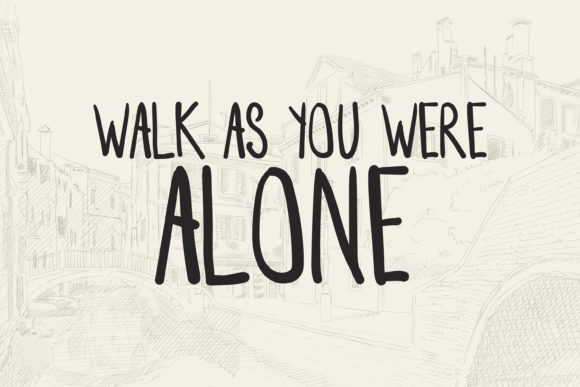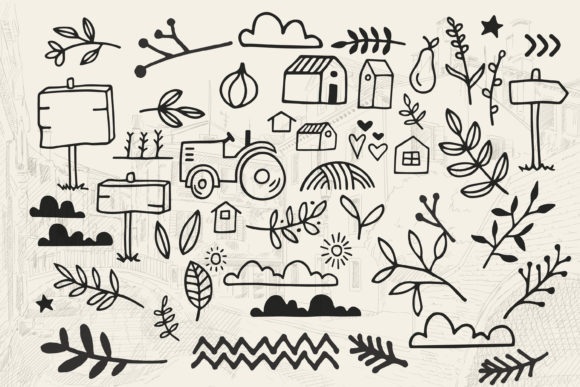
Discover the Charm of Asur Regular Font: Elevate Your DIY Projects with a Friendly Sans-Serif Delight
Are you a designer, crafter, or DIY enthusiast looking for a font that can add a touch of warmth and personality to your projects? Look no further than the Asur Regular Font. This adorable sans-serif font is designed to bring a friendly feel to any design, making it perfect for a wide range of creative endeavors. In this article, we’ll dive into the world of Asur Regular, exploring its unique features, and how it can be used to bring your DIY projects to life.
The Allure of Asur Regular Font
Asur Regular Font is a cute and lovely sans-serif font that boasts an incredibly friendly feel. Its unique design makes it stand out from more traditional fonts, offering a fresh and modern aesthetic that’s sure to capture attention. The font’s clean lines, and approachable style, make it an excellent choice for designers and crafters who want to add a personal touch to their work.
Key Features of Asur Regular Font
- Unique Sans-Serif Design: Asur Regular features a distinctive sans-serif design that sets it apart from other fonts in its category.
- Friendly Feel: The font’s friendly feel makes it perfect for projects that require a personal touch, such as crafting, DIY, or social media graphics.
- Cute and Lovely Aesthetic: Asur Regular’s adorable design makes it an excellent choice for projects that require a playful and charming touch.
- Versatility: This font can be used for a wide range of projects, from digital designs to print materials.
How to Use Asur Regular Font in Your DIY Projects
Asur Regular Font can be used in a variety of DIY projects, including:
- Handmade Crafts: Add a personal touch to your handmade crafts, such as knitting patterns, sewing projects, or paper crafts.
- Social Media Graphics: Use Asur Regular to create engaging social media graphics, such as quotes, posters, or Instagram stories.
- DIY Signage: Create eye-catching signs for your home, business, or event using Asur Regular Font.
- Paper Crafting: Add a touch of personality to your paper crafting projects, such as cards, invitations, or scrapbooking.
Tips for Getting the Most Out of Asur Regular Font
To get the most out of Asur Regular Font, consider the following tips:
- Pair with Other Fonts: Experiment with pairing Asur Regular with other fonts to create a unique and visually appealing design.
- Use in Combination with Images: Combine Asur Regular with high-quality images to create stunning visual content.
- Experiment with Colors: Try out different color schemes to find the perfect combination that complements your design.
In conclusion, Asur Regular Font is a versatile and charming sans-serif font that’s perfect for designers, crafters, and DIY enthusiasts. Its unique design, friendly feel, and cute aesthetic make it an excellent choice for a wide range of creative projects. By incorporating Asur Regular into your designs, you can add a personal touch and bring your DIY projects to life. So why wait? Download Asur Regular Font today and start creating stunning designs that capture the hearts of your audience.